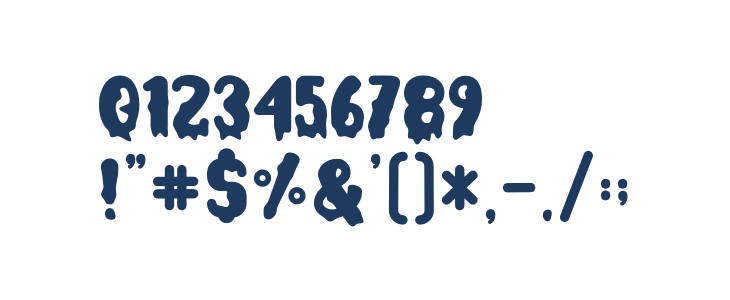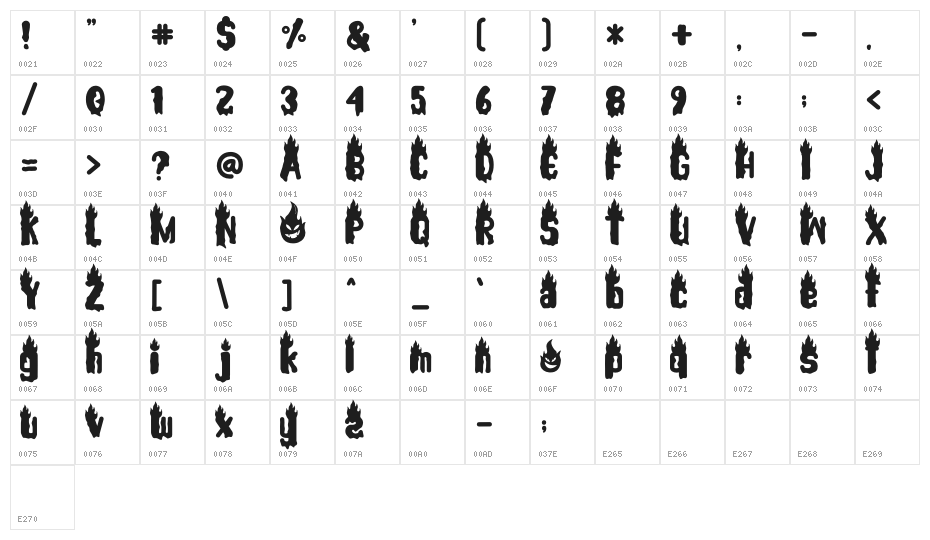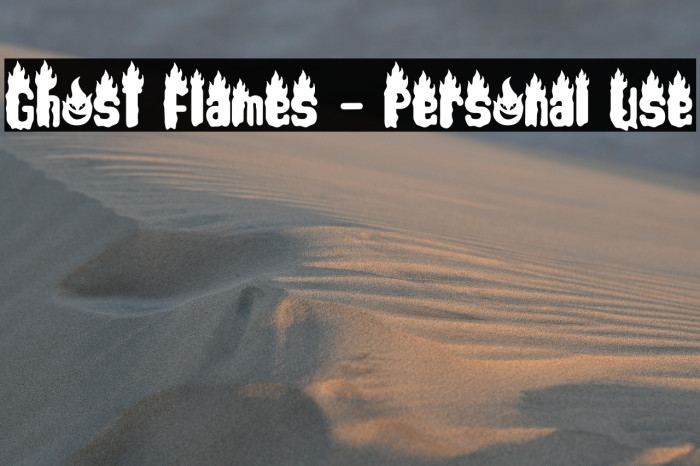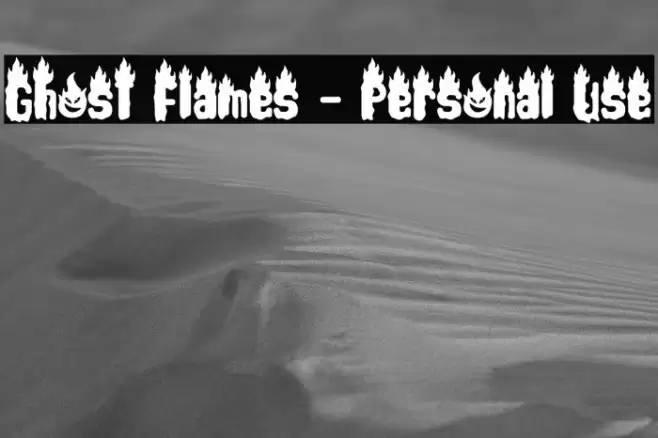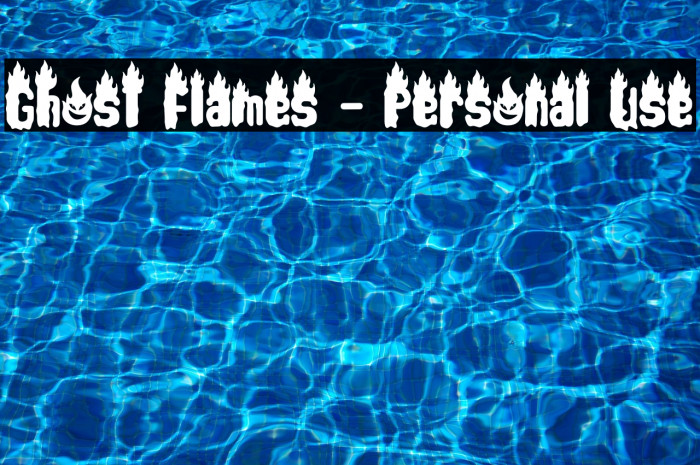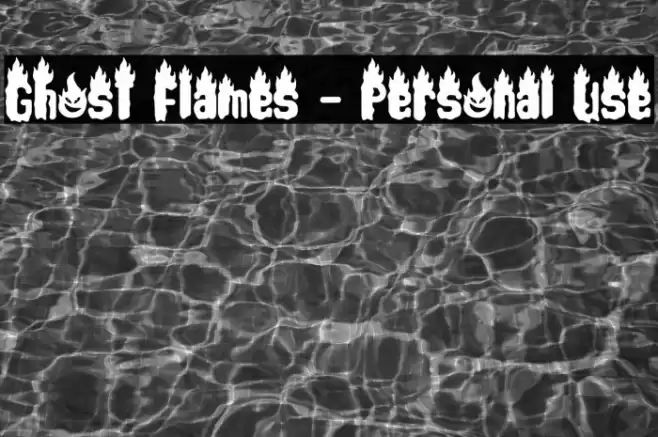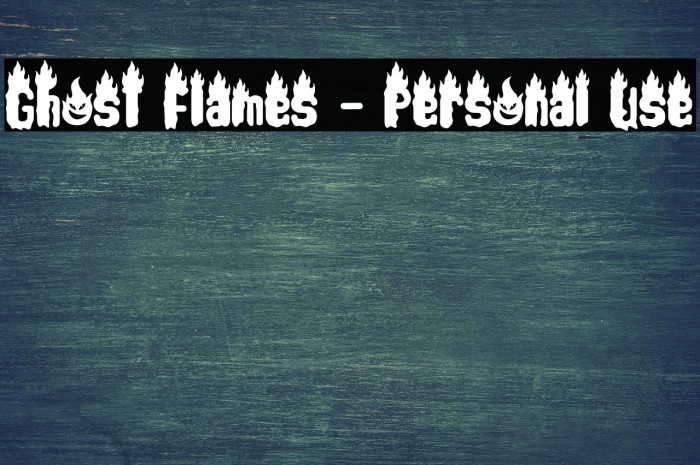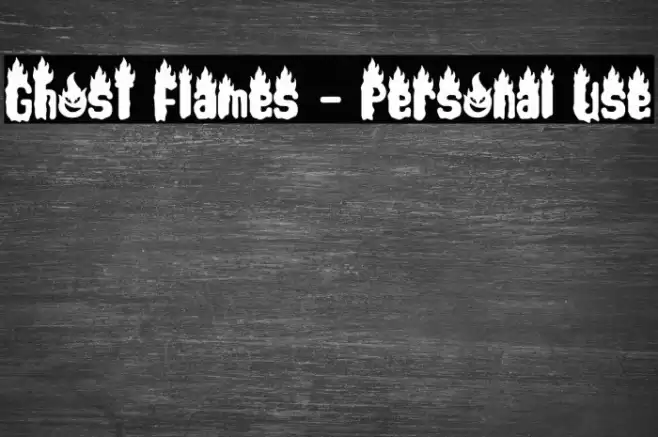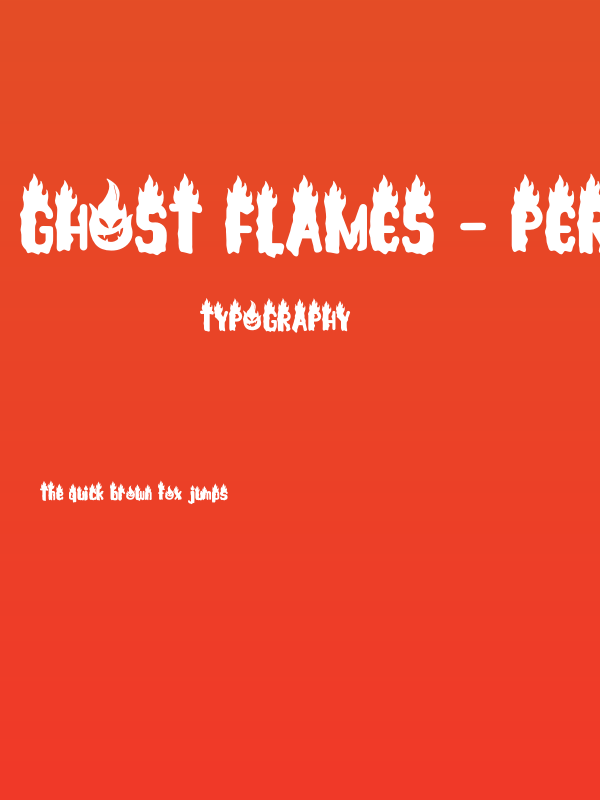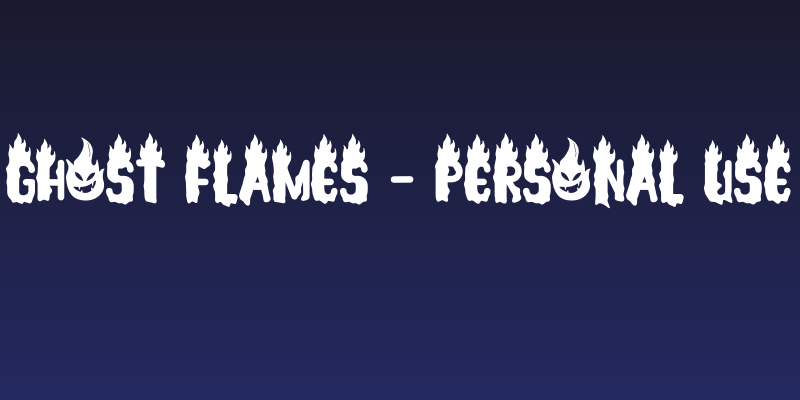
Ghost Flames - Personal Use Font
Ghost Flames - Personal Use Description
This font features a bold and fiery design, with each character engulfed in stylized flames. The uppercase and lowercase letters maintain a consistent flame motif, creating a dynamic and energetic appearance. The numbers and special characters also follow this theme, making the font ideal for eye-catching designs. The overall aesthetic is both playful and intense, perfect for projects that require a dramatic flair.
| Proposed Projects | Ideal for Halloween-themed designs, event posters, party invitations, and any project requiring a bold, fiery aesthetic. |